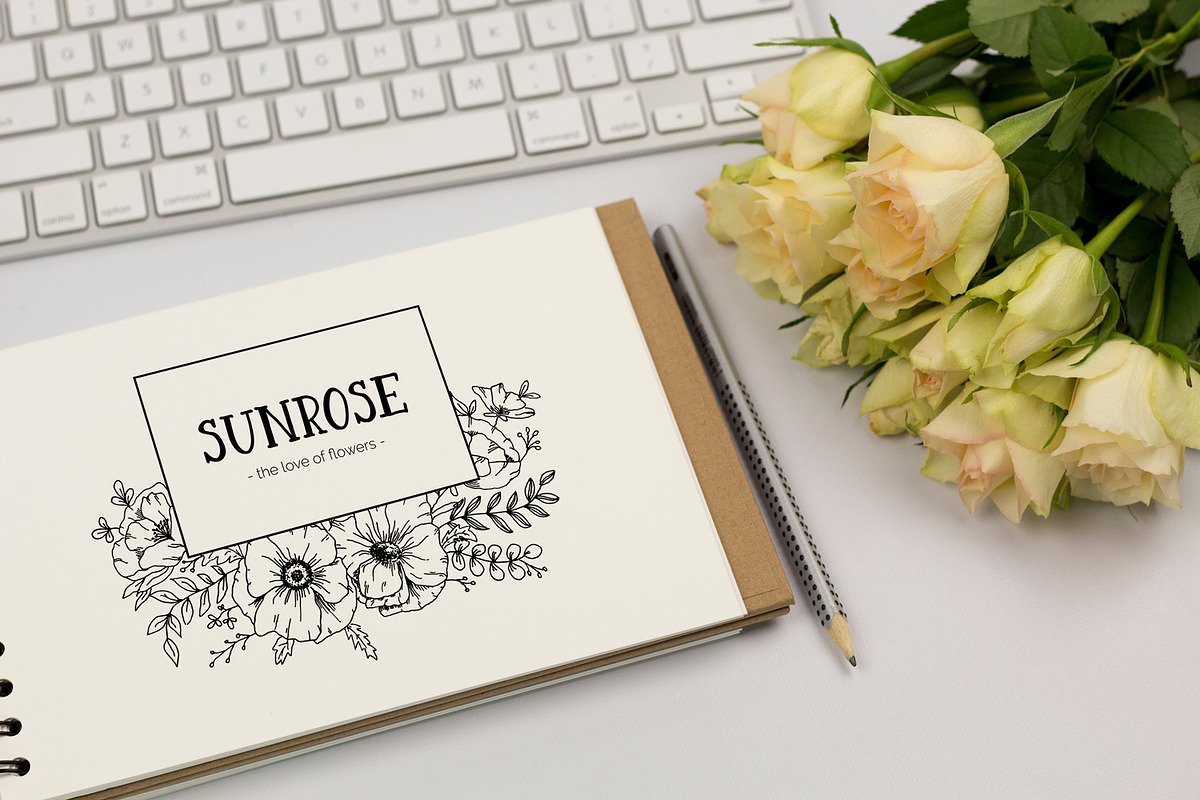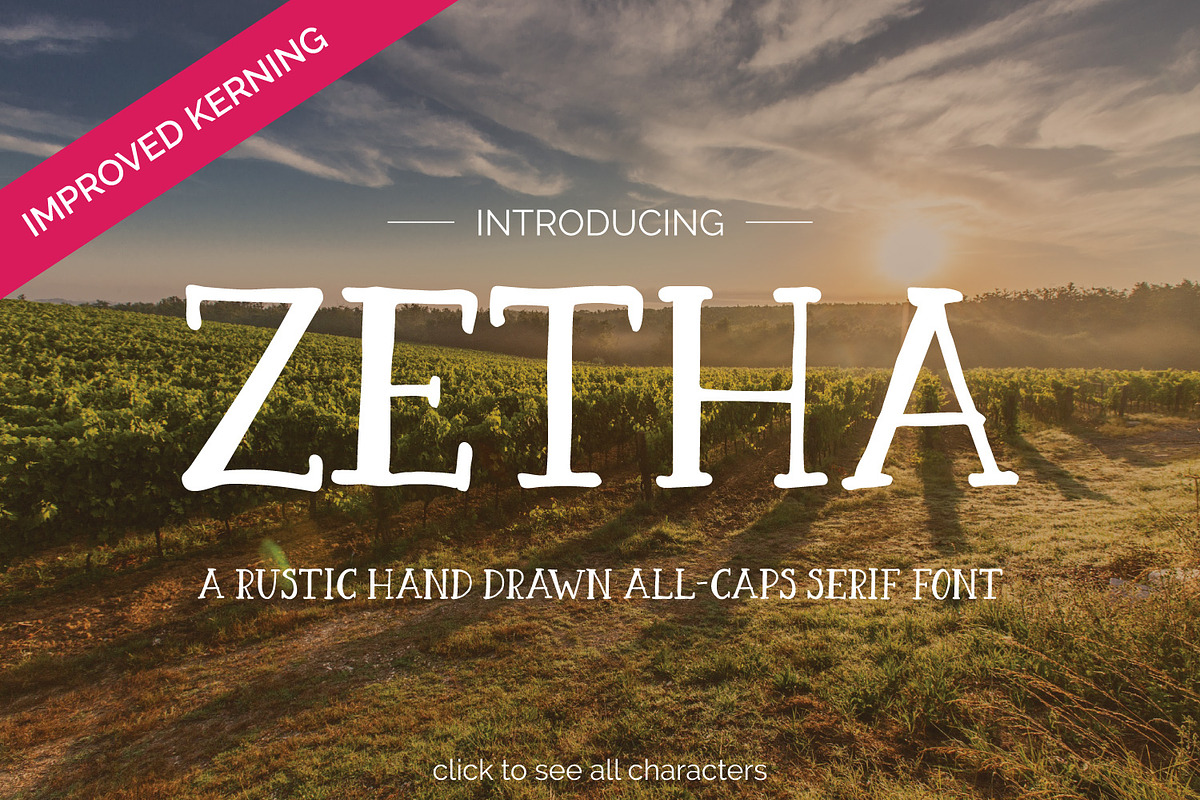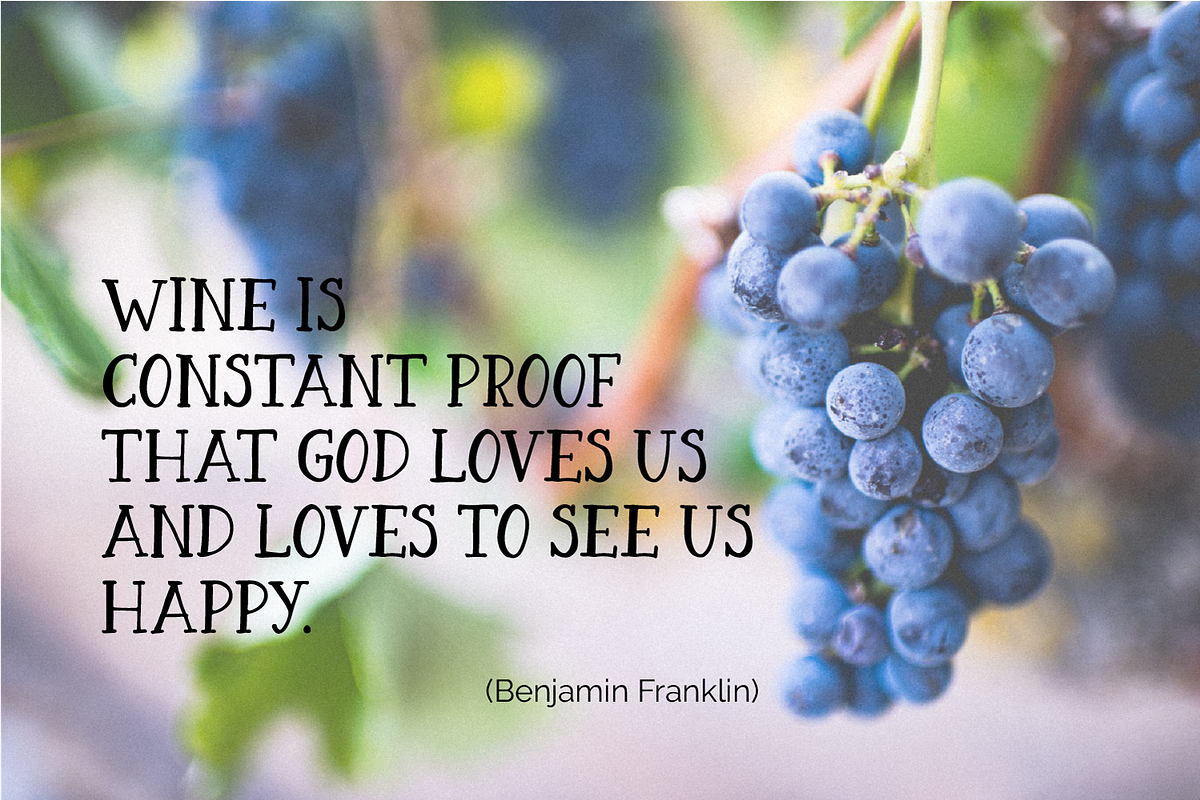
Zetha - a Hand Drawn Serif Font
Zetha - a Hand Drawn Serif Font by Kreanille Design is a font selected for branding, posters, packaging, typography.
- Zetha is a hand drawn all-caps serif font with a rustic charm available with a huge set of special characters (so you can use it in e.g.
Zetha - a Hand Drawn Serif Font by Kreanille Design fits naturally into Branding, posters, packaging, typography.